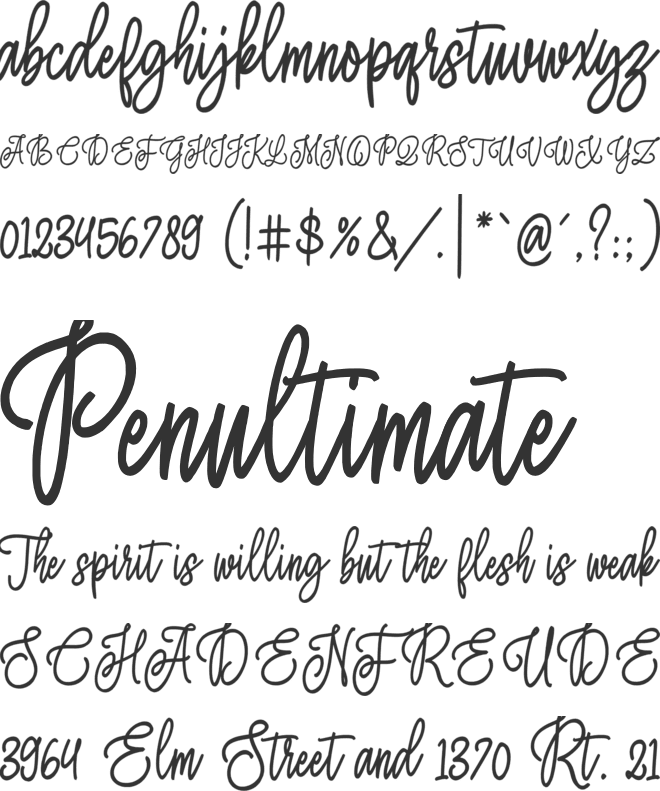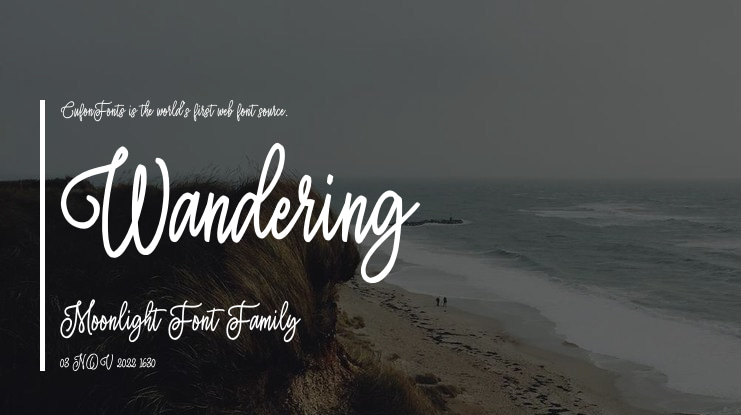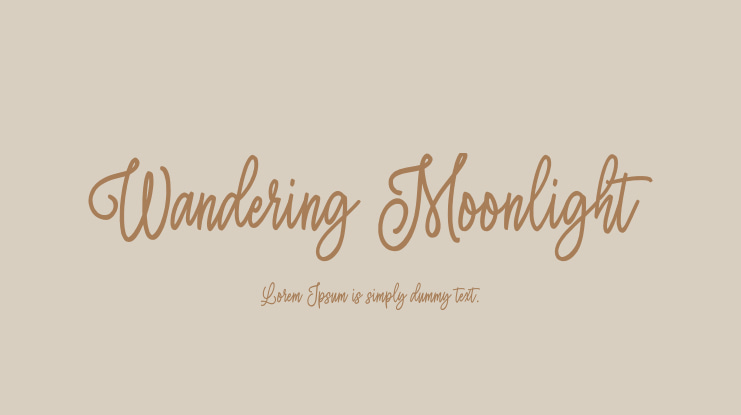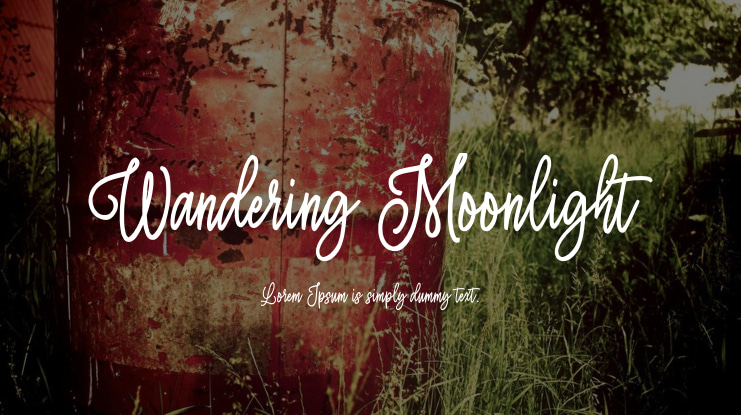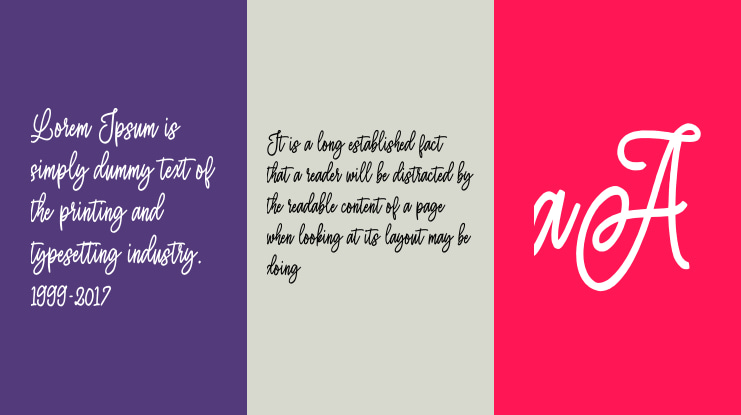
Wandering Moonlight Font
Wandering Moonlight is an exquisite handwriting script typeface that captures the poetic beauty of soft, moonlit nights. Its graceful, flowing strokes and delicate curves create a sense of romantic elegance and fluidity, making it ideal for projects that call for a touch of personal charm and refinement. This font feels as if it has been carefully handwritten, offering a timeless, natural look that elevates any design.